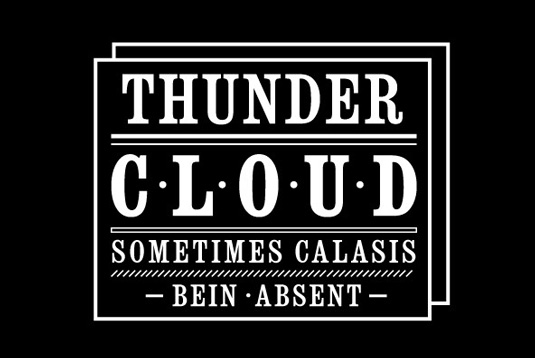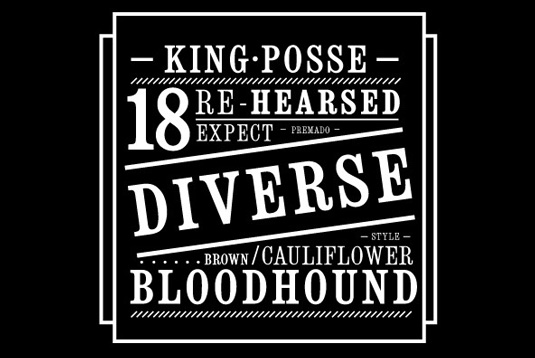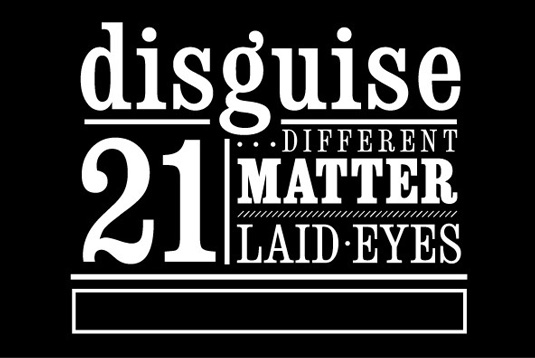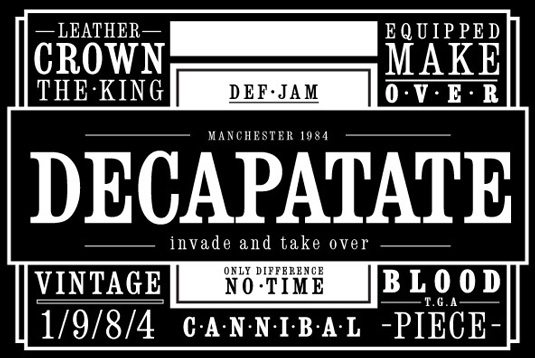
Font of the day: Consort
Consort by Steve Jackaman
Designed by Steve Jackaman, Consort is a serif design based on the original Stephenson Blake typeface design. The set includes 216 glyphs, made up of upper and lowercase letters, numbers and special characters.